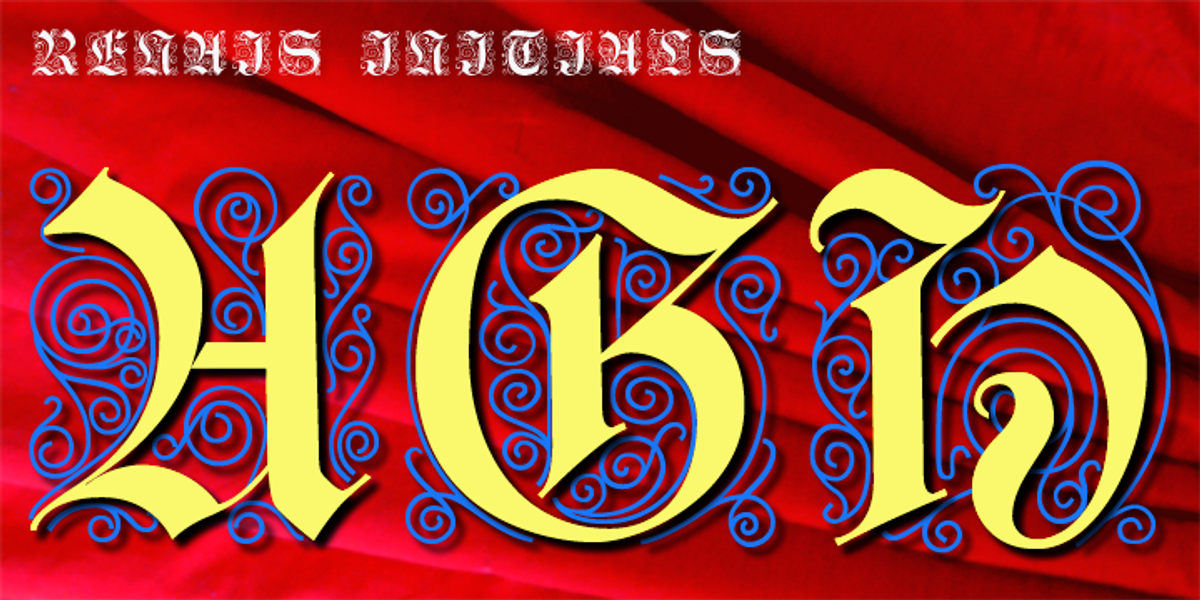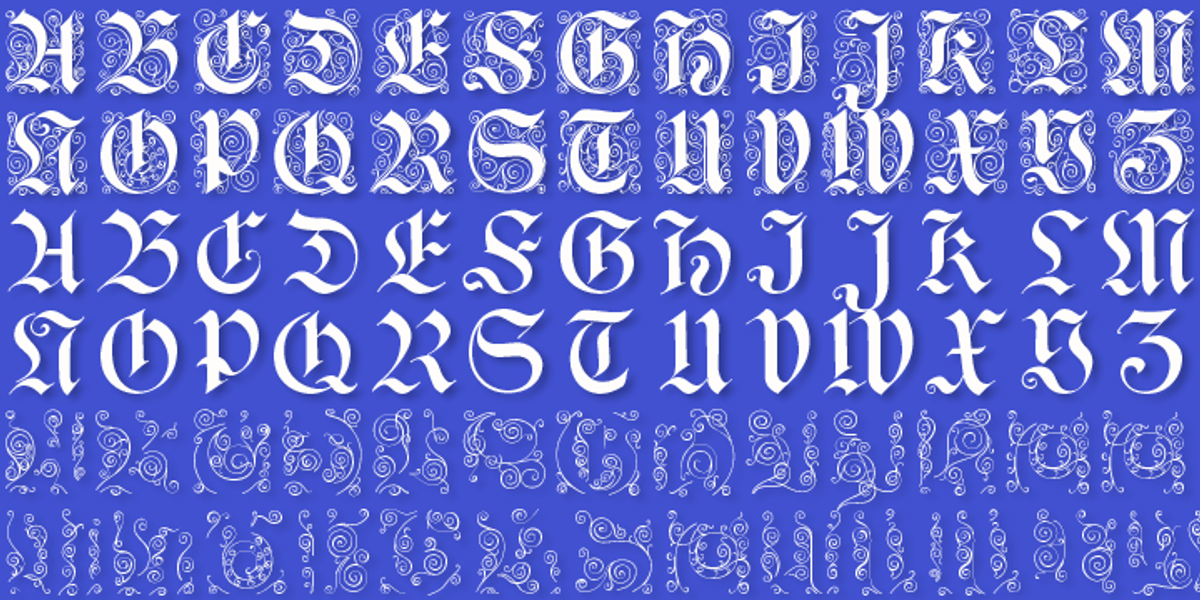
Renais
Renais is a blackletter font inspired by Renaissance Initials. It features both embellished and unembellished uppercase and lowercase letters, along with separate embellishments accessible as dingbats. The design allows for superposition of the three forms (embellished letter, unembellished letter, embellishment) to create unique visual effects.